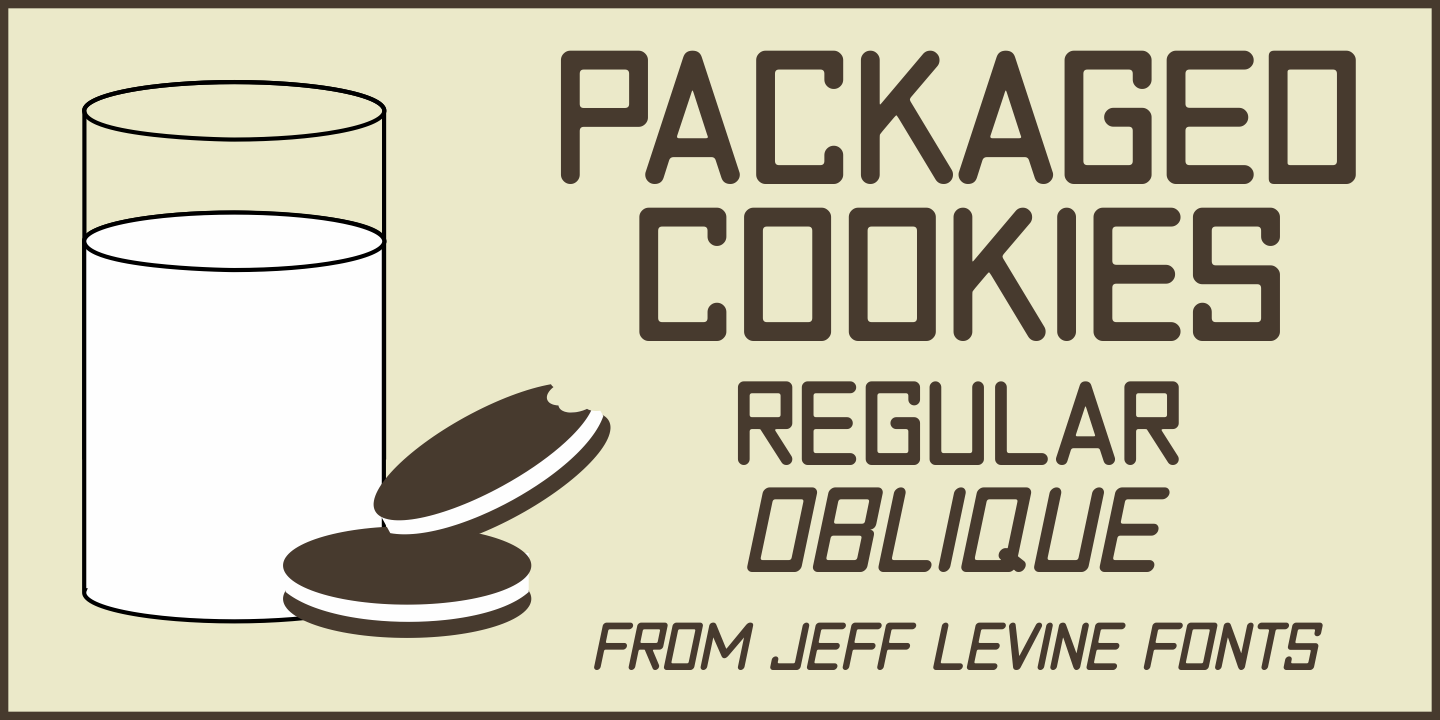
Packaged Cookies JNL Font is perfect for vintage product packaging, retro advertising campaigns, bakery signage, food truck branding, nostalgic poster designs, candy shop logos, diner menus, vintage-style greeting cards, classic car show materials, and old-school restaurant displays.
What makes Packaged Cookies JNL Font so exciting is its authentic vintage charm that instantly transports viewers back to the golden age of American advertising. This typeface captures the distinctive lettering style found on classic consumer packaging from the 1940s and 1950s, featuring bold, rounded characters with playful curves that evoke feelings of nostalgia and comfort. The font's hand-crafted appearance brings warmth and personality to any design project.
Packaged Cookies JNL Font family includes Regular weight with uppercase and lowercase letters, numbers, and essential punctuation marks. The font maintains consistent vintage aesthetics while offering versatility for both headline and display applications in retro-themed projects.
The Packaged Cookies JNL Font Free Download provides designers with an exceptional opportunity to add authentic vintage flair to their creative projects. This distinctive typeface perfectly captures the spirit of mid-century American commercial design, making it an invaluable resource for brands seeking to evoke nostalgia and establish emotional connections with their audiences.
Packaged Cookies JNL Font excels in applications requiring bold, eye-catching typography that stands out from contemporary design trends. Its rounded letterforms and playful character make it ideal for food and beverage branding, entertainment industry materials, and any project requiring a touch of whimsical nostalgia. The font's robust construction ensures excellent readability even at smaller sizes.
Professional designers choose Packaged Cookies JNL Font for its ability to instantly communicate vintage authenticity and American commercial heritage. The typeface works exceptionally well in both print and digital applications, maintaining its distinctive character across various media formats. Its unique personality makes it perfect for brands wanting to differentiate themselves through retro-inspired visual identity.
The Packaged Cookies JNL Font Free Download offers creative professionals an excellent starting point for exploring vintage typography trends. With its authentic mid-century styling, reliable performance, and distinctive character, this font represents outstanding value for designers, marketers, and creative agencies specializing in nostalgic branding, retro advertising, and vintage-inspired visual communications that capture the essence of classic American design.